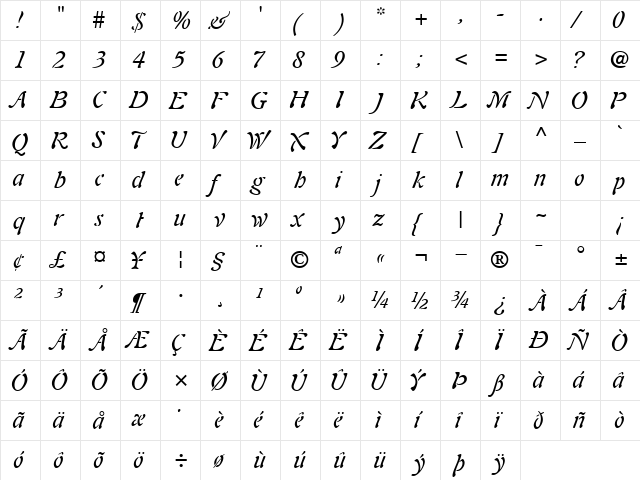
PaletteSSK Italic
Design Context for PaletteSSK Typeface
PaletteSSK takes a measured approach to typography — its balanced proportions and neutral character make it a reliable workhorse for both digital and print work. The slanted form adds forward momentum and visual energy.
Pro Tip: Try PaletteSSK for annotation and caption copy alongside an upright companion — the contrast in angle creates a dynamic but ordered typographic system.